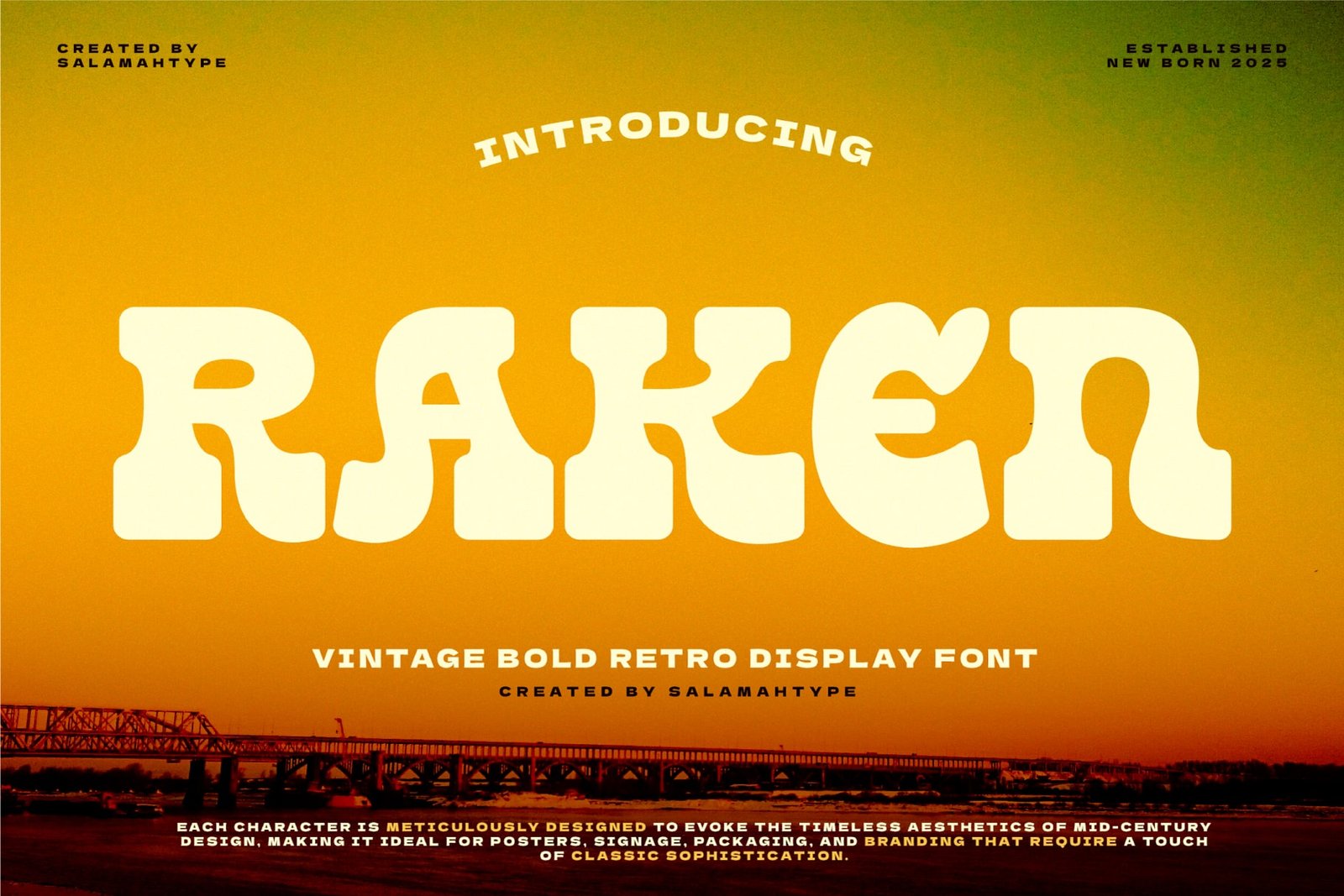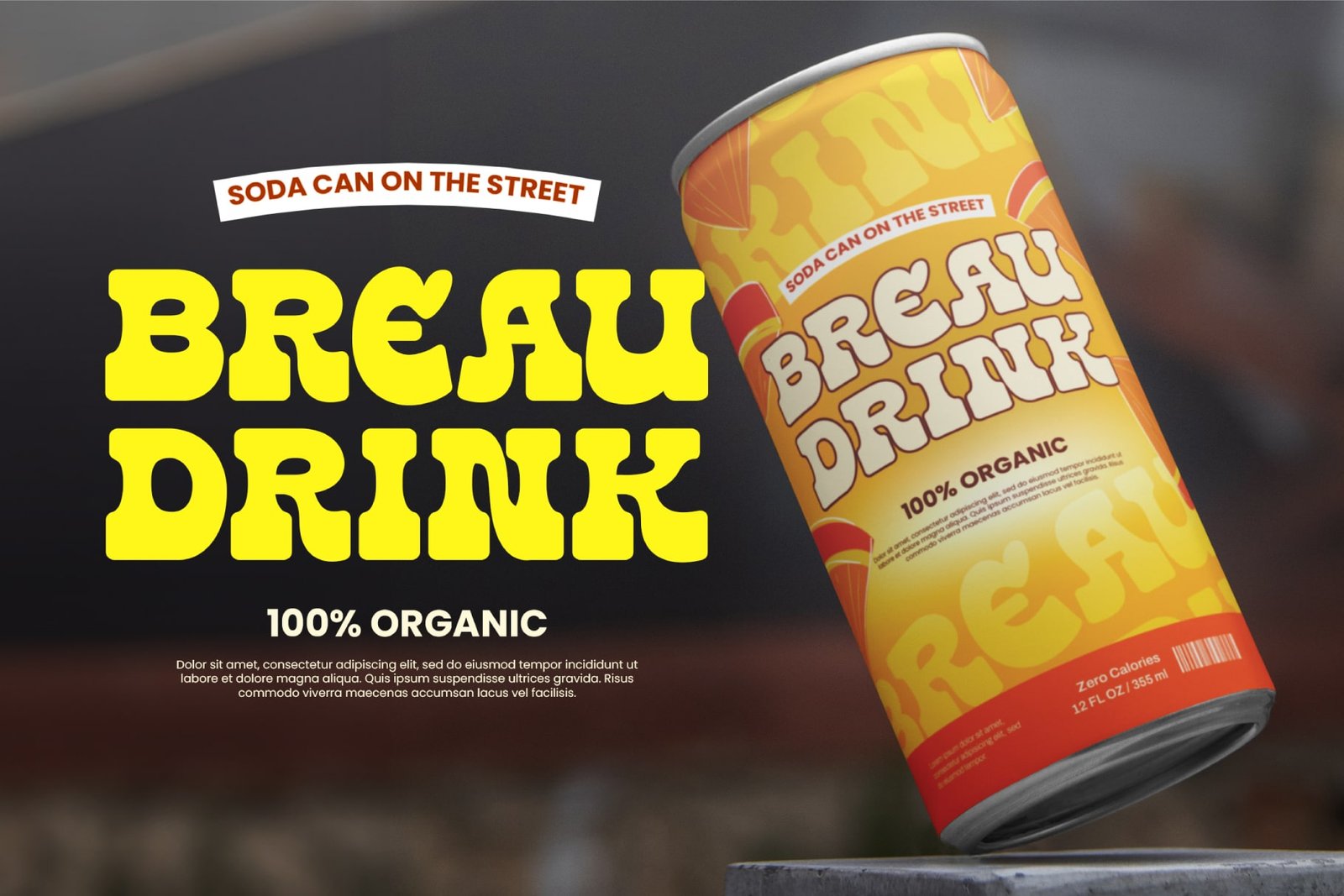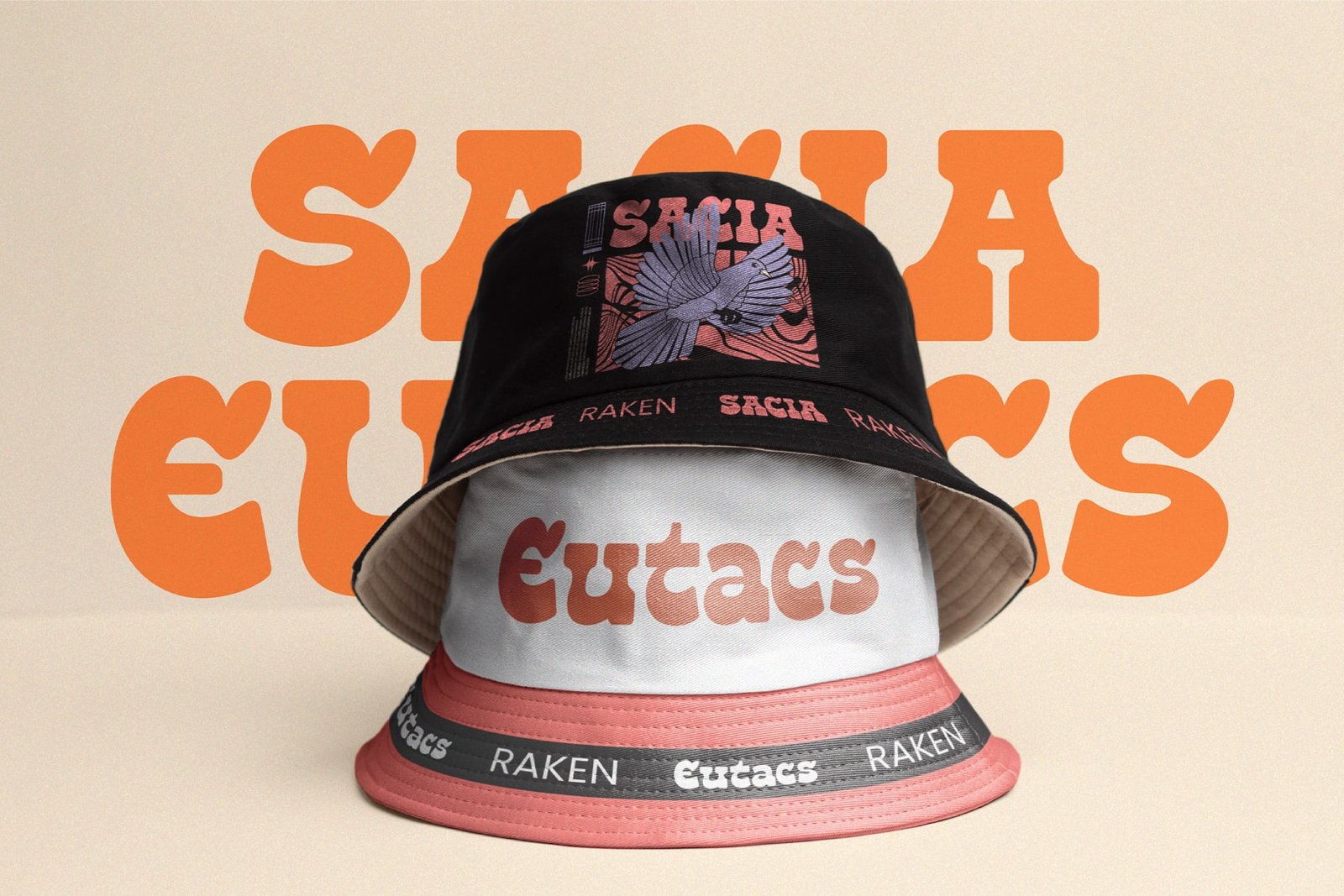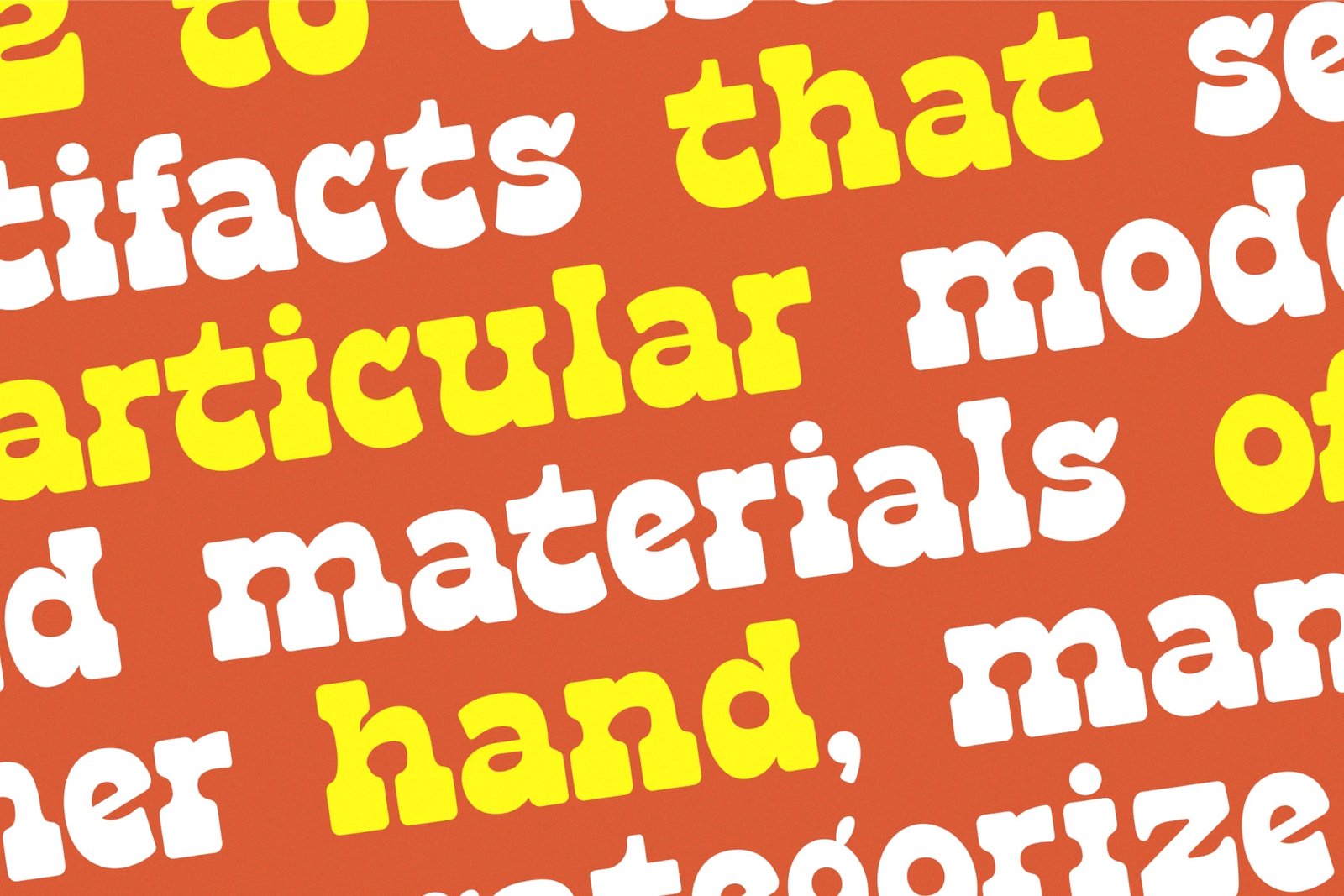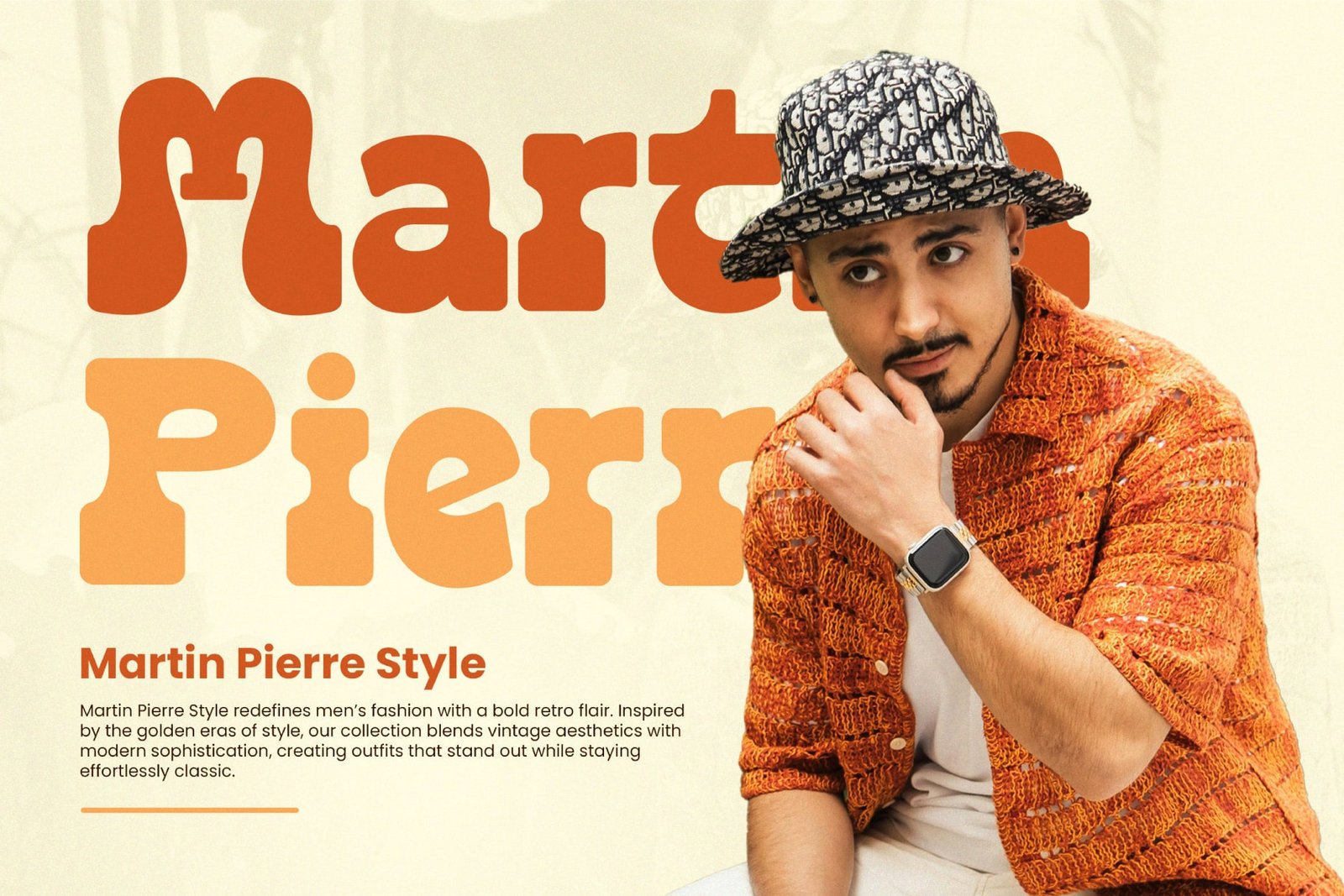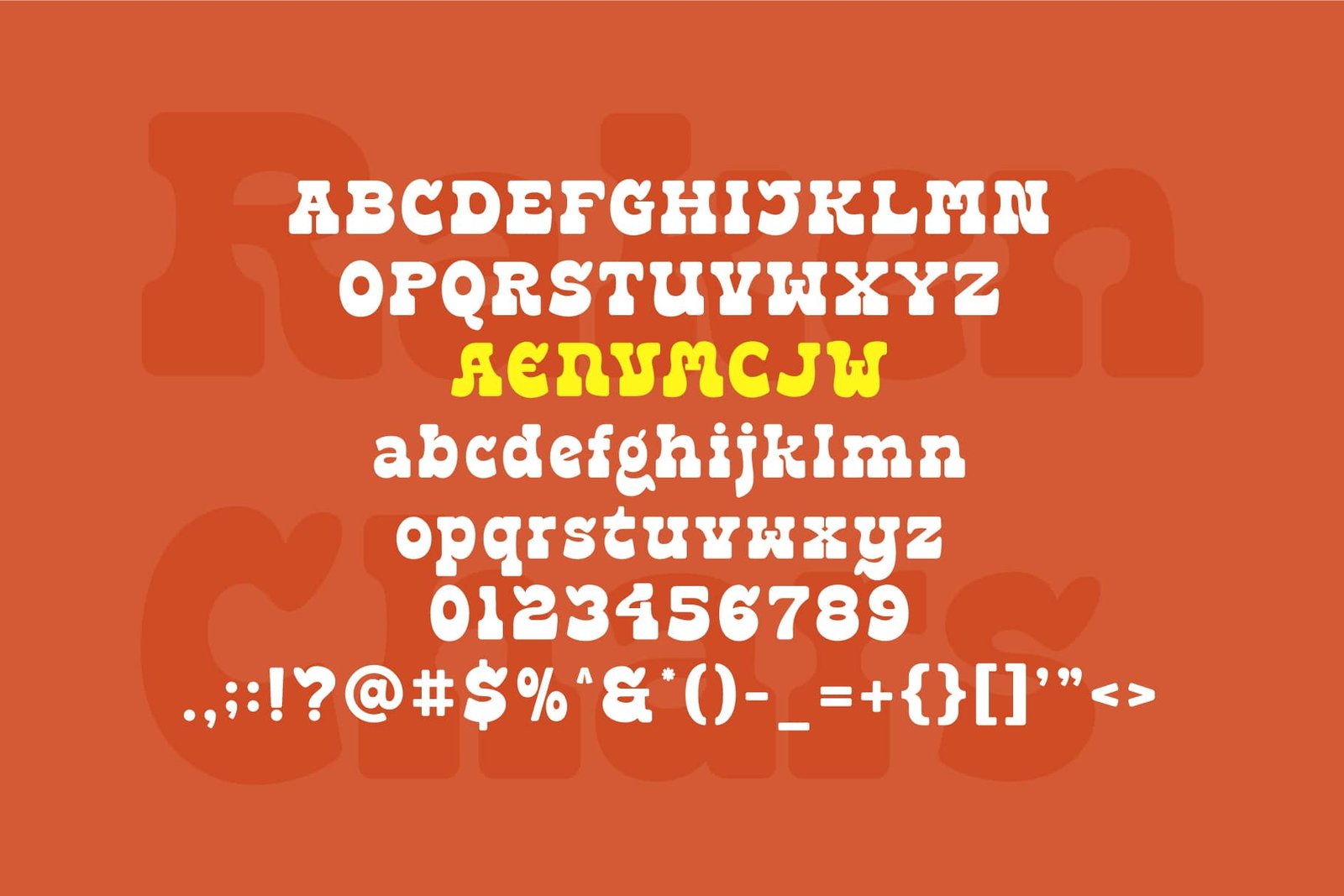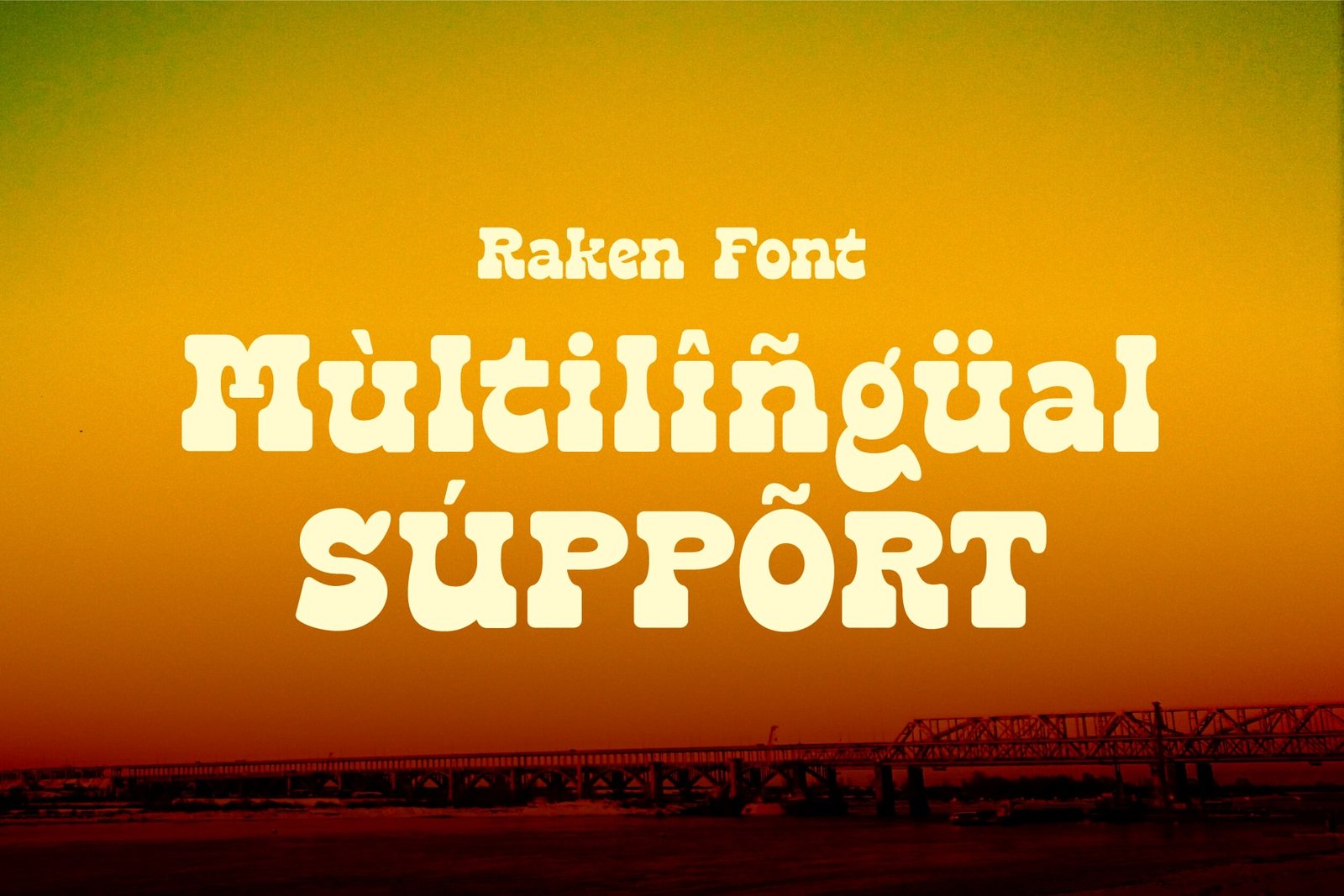
Raken
Raken is a bold, vintage-style display font designed to make a timeless statement. Its classic yet timeless appeal exudes boldness and sophistication, making it the perfect choice for impactful headlines, logos, branding, posters, and packaging.
With strong letterforms with sharp edges and gentle curves, Raken seamlessly blends vintage aesthetics with contemporary versatility. This font is ideal for projects that demand attention, such as retro-inspired designs, advertising campaigns or merchandise.
Raken includes:
- All uppercase and lowercase
- Alternates
- Numbers and punctuation
- Multilingual support
Let Raken elevate your designs with its vintage charm and bold personality. Whether you’re working on a nostalgic project or a modern statement piece, this font will provide the perfect finishing touch.